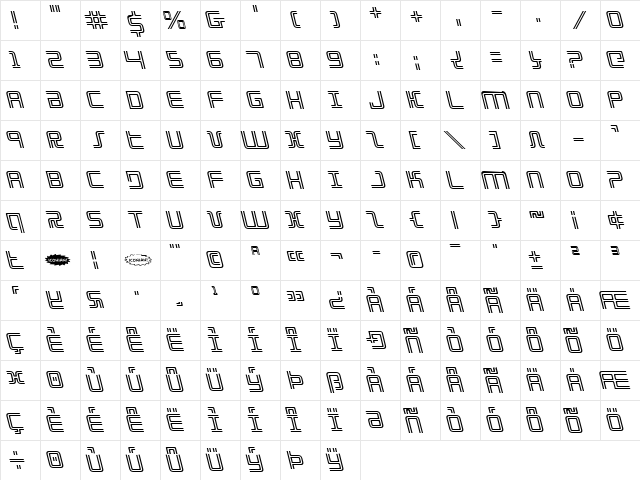
Election Day Leftalic Italic
Design Context for Election Day Leftalic Typeface
Election Day Leftalic is a composed and adaptable typeface that performs quietly and consistently across a wide range of design contexts. Its italic angle brings a sense of urgency and motion to the letterforms.
Pro Tip: Use Election Day Leftalic for emphasis, pull quotes, and subheadings where its slanted energy can add rhythm to the layout.